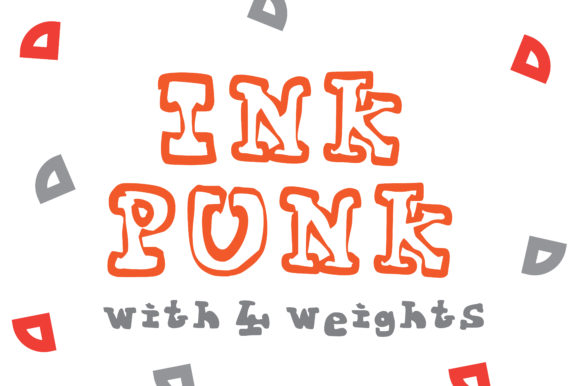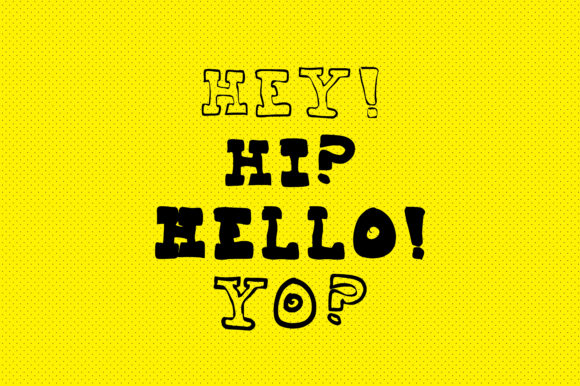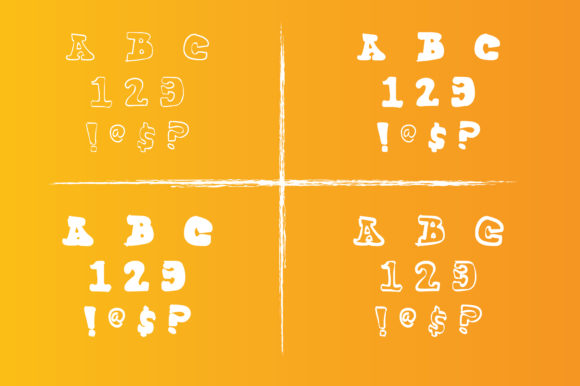
Ink Punk Font
About Ink Punk Font
The Ink Punk is an amazing hand-drawn font. It has a lot of personality and is perfect for making your design stand out.